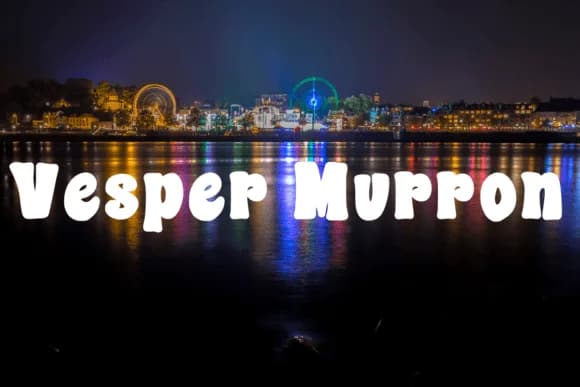
1 / 6About Malai Kanchana Font
Malai Kanchana by TNE Designs is a chunky slab serif that refuses to whisper. Every letterform carries substantial weight and warmth, with thick strokes that command genuine visual space and rounded terminals that keep the overall feel friendly rather than aggressive. Its name carries meaningful symbolism: malai refers to a garland of flowers, while kanchana evokes golden beauty and luxury. Those qualities infuse the entire typeface with both strength and tropical lightness.
When you need text to actually land and hold attention, this is the typeface to reach for. Wedding invitation suites gain instant elegance and energy from its bold, approachable character that speaks to celebration and joy. Etsy product labels for handmade goods thrive under the way it balances confidence with warmth, making buyers stop and look. Boutique skincare packaging, festival posters, and custom craft signs all transform with this typeface's commanding presence. The font contains 99 alphabet glyphs alongside 96 accent characters, supporting international and multilingual work within the Latin script family.
Display projects, packaging design, and branding work that needs to make an impression demand a typeface with real presence and personality. Malai Kanchana delivers exactly that, bringing tropical warmth and bold confidence to every application. You'll find it on Creative Fabrica.
Malai Kanchana Font is a slab serif font that shines as a display or heading face. Pair it with a clean sans-serif or serif font for body text β the contrast creates a clear hierarchy while the two styles stay balanced and easy to read.
Malai Kanchana Font
by TNE Designs